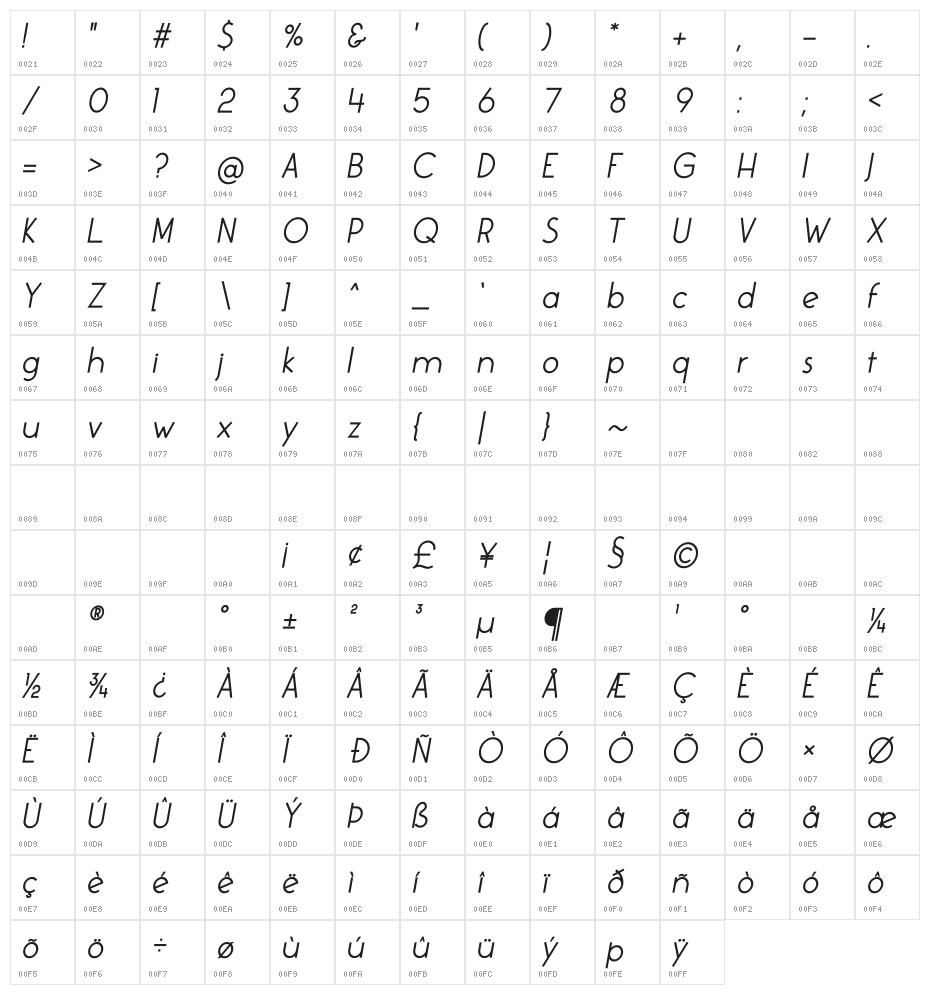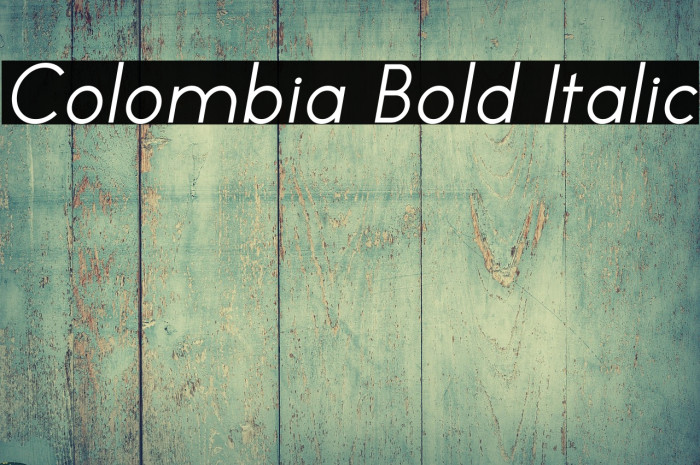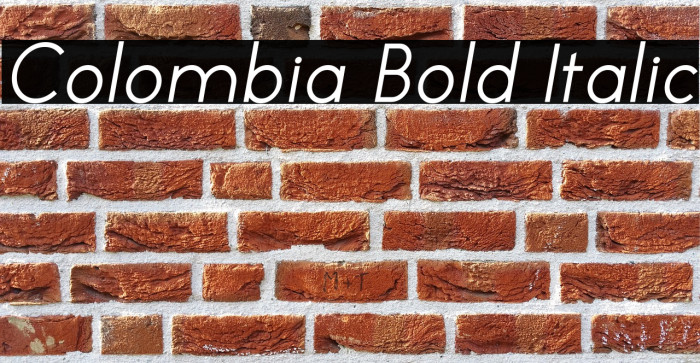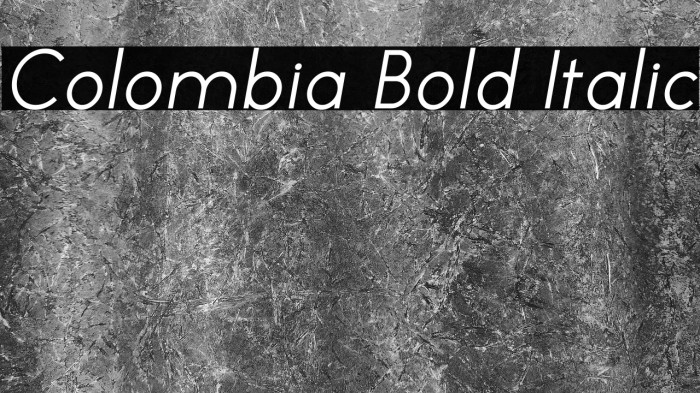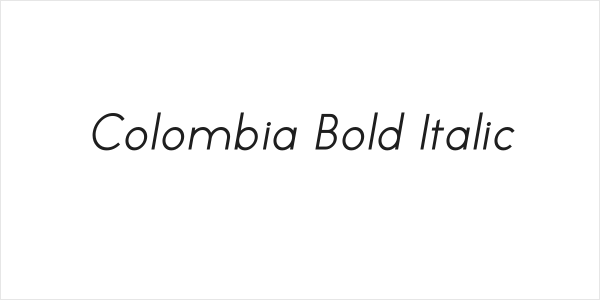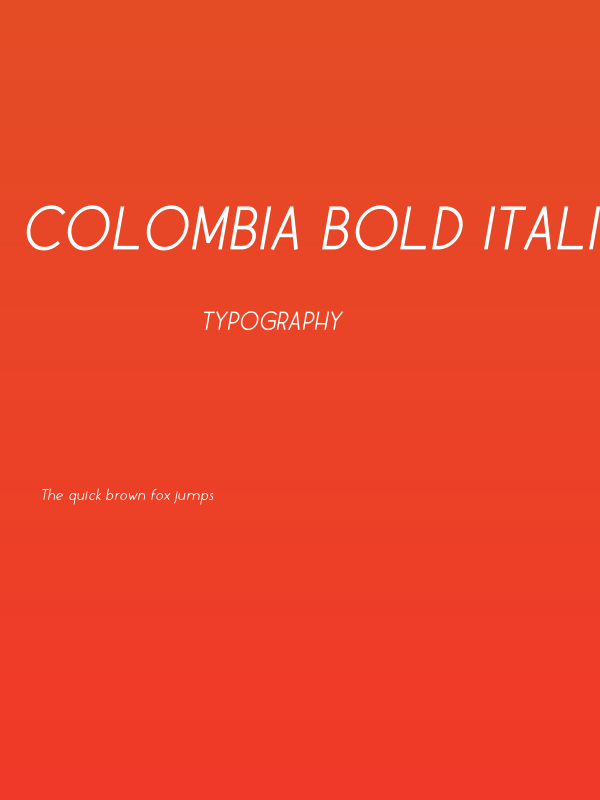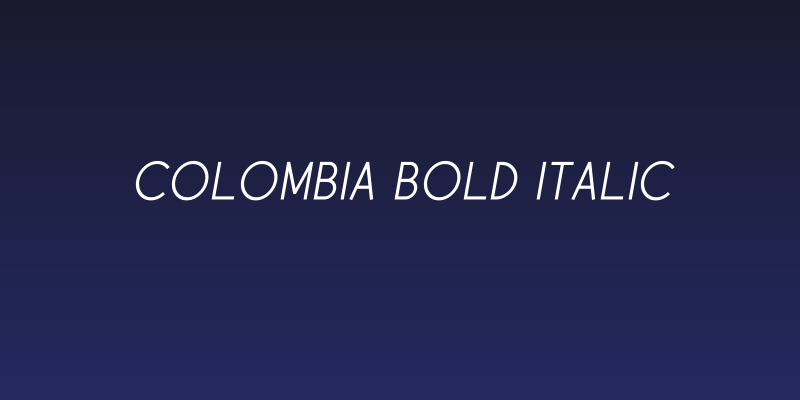
Colombia Bold Italic Font
Colombia Bold Italic Description
This font features a sleek and modern design with a distinct italic slant, giving it a dynamic and forward-moving appearance. The characters are crafted with clean, smooth lines and a consistent stroke width, contributing to a sense of elegance and sophistication. The uppercase letters are bold and assertive, while the lowercase letters maintain a harmonious balance with their slightly rounded forms. The numerals are clear and easily readable, making them suitable for various applications. Special characters are well-integrated, maintaining the overall aesthetic of the font. This typeface is versatile and can be used in a wide range of design projects.